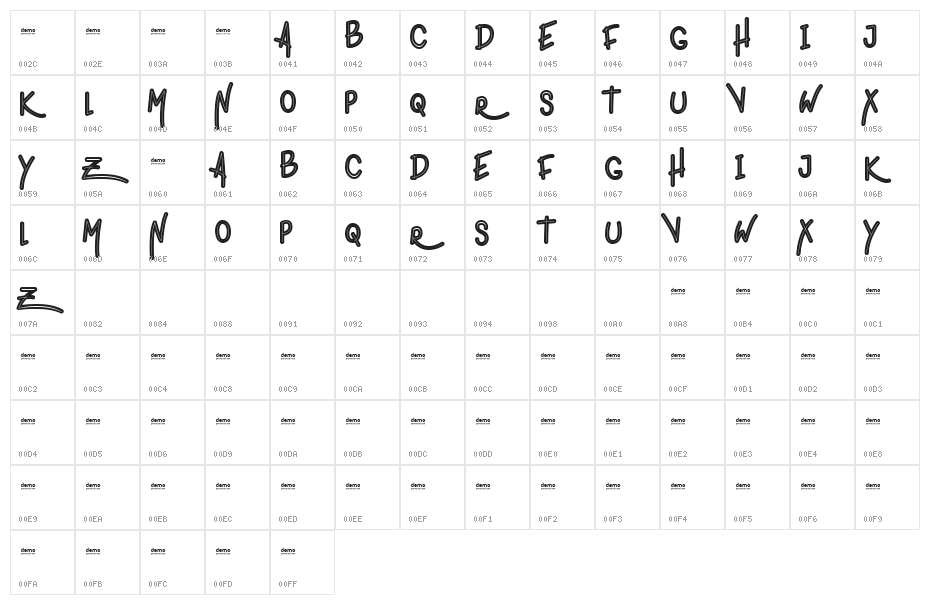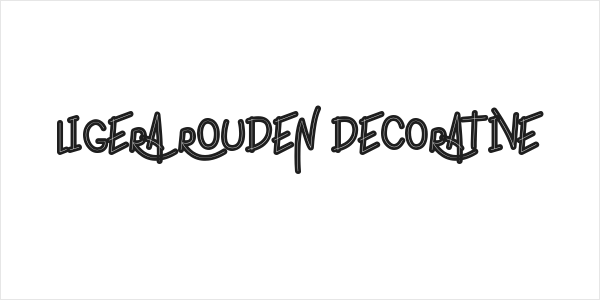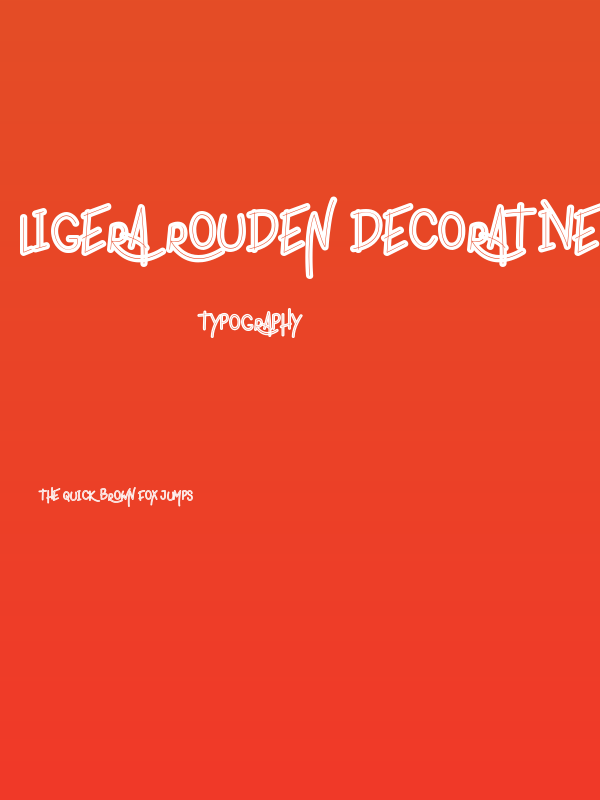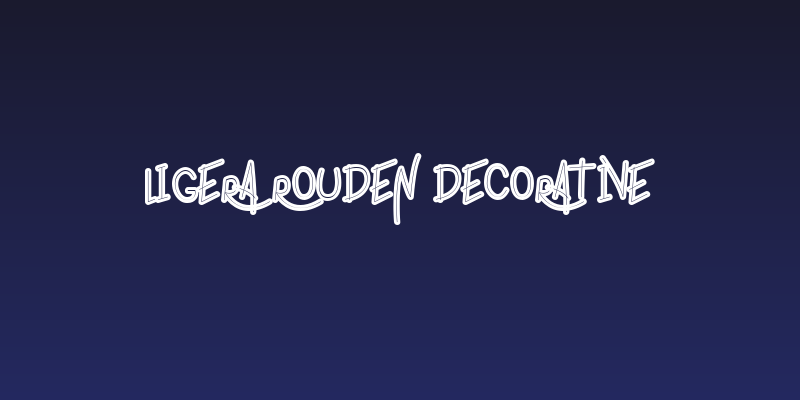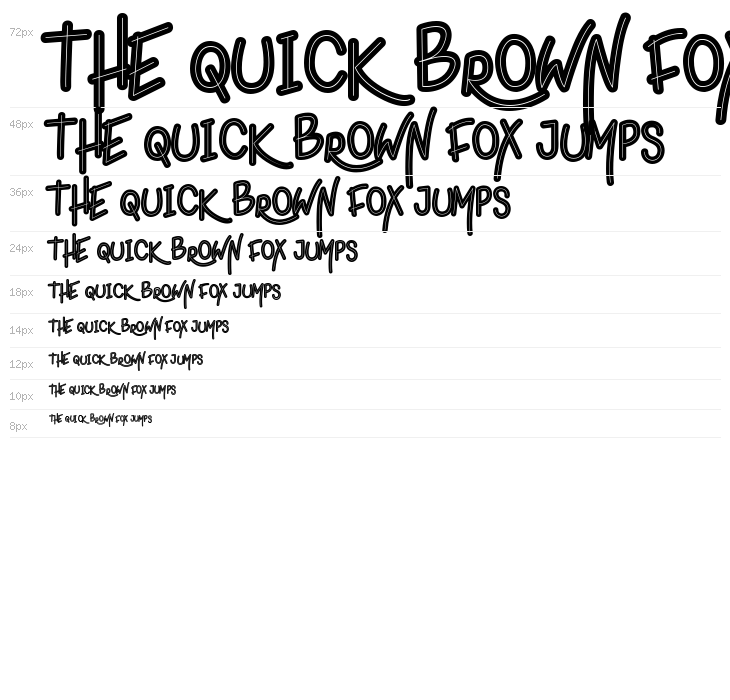
ligera rouden Decorative Font
ligera rouden Decorative Description
This font features a bold, energetic style with a handwritten appearance. The characters are outlined with a thick stroke, giving them a strong presence. The letters have a playful, graffiti-like quality, with some characters extending beyond the baseline, adding a dynamic and informal touch. The overall look is casual and artistic, making it suitable for creative projects. The uppercase and lowercase letters maintain a consistent style, with unique flourishes on certain characters, enhancing its decorative appeal.
| Overall Style | Modern, Artistic |
| Use Case | Logos, Posters, Creative Branding |
| Proposed Projects | Ideal for street art designs, music album covers, event posters, and creative branding. |